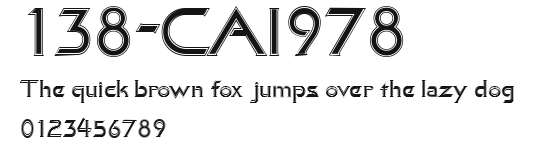
• Font Name: 138-CAI978
About 138-CAI978.ttf
138-CAI978.ttf is a modern, elegant sans-serif font designed for ultimate readability and visual harmony. Perfect for branding, headlines, web design, and print materials.